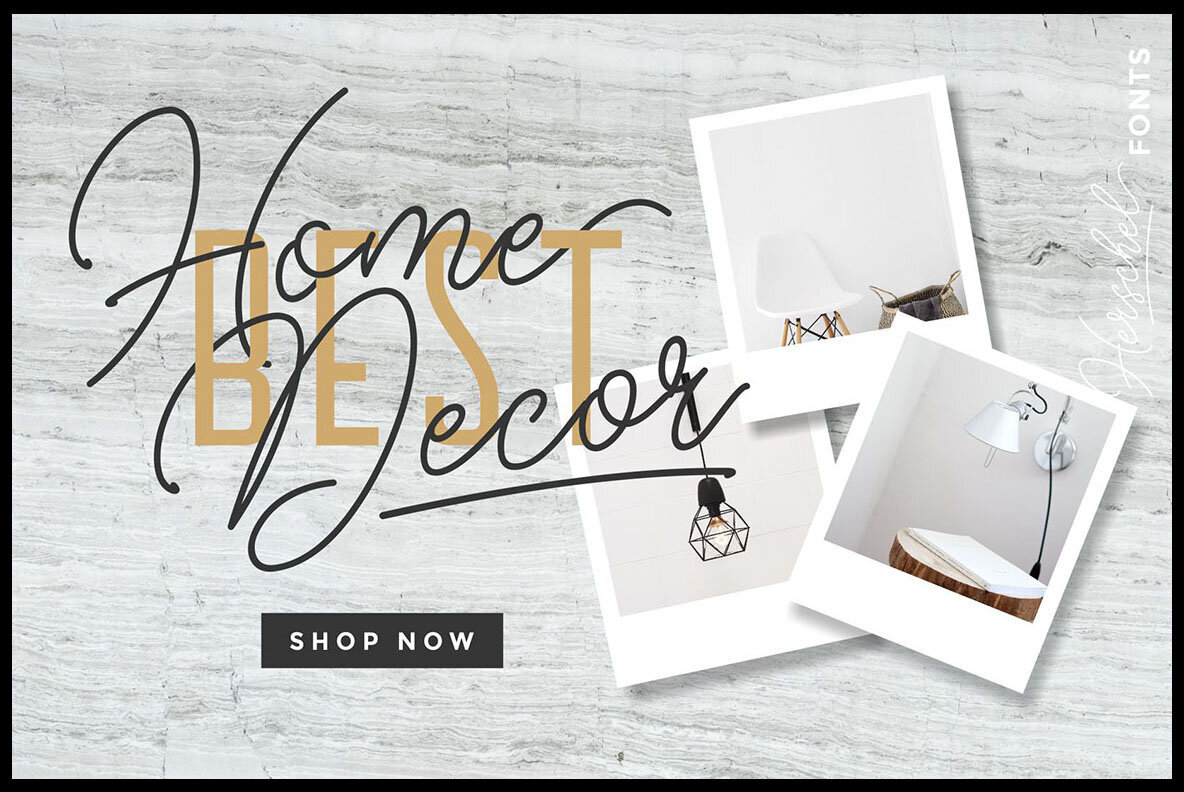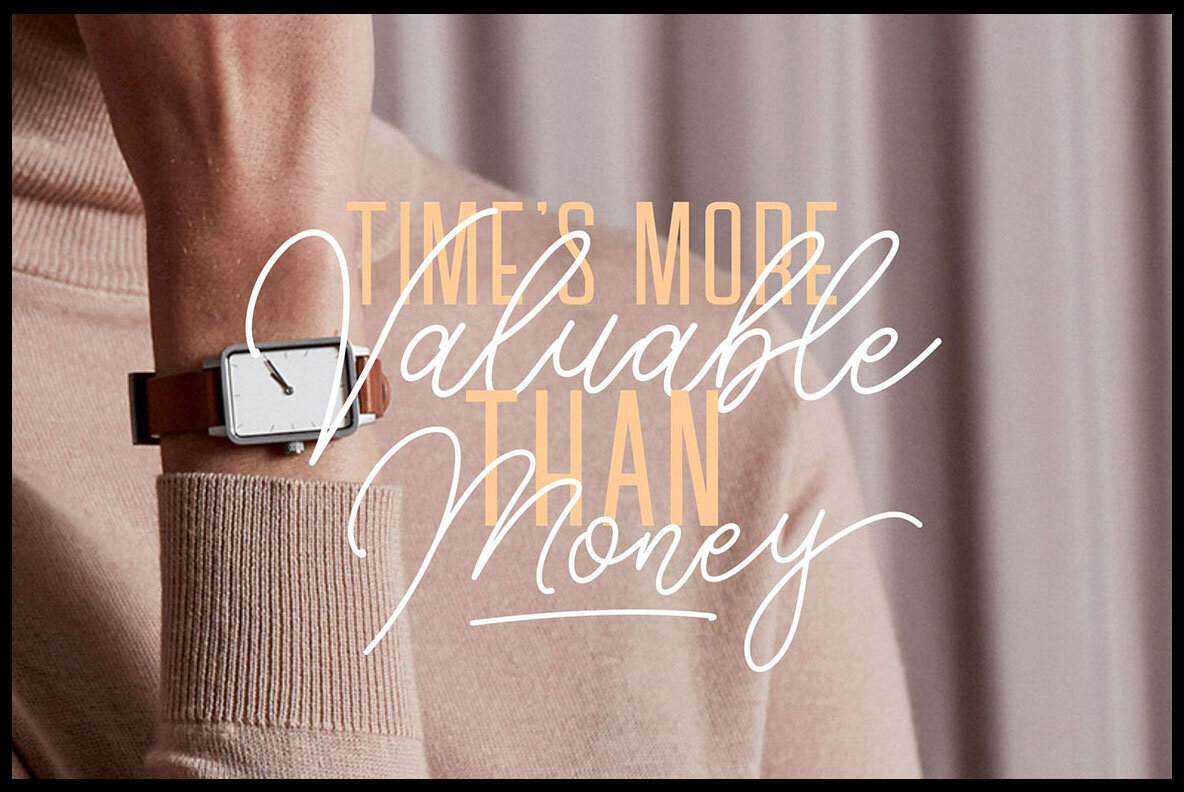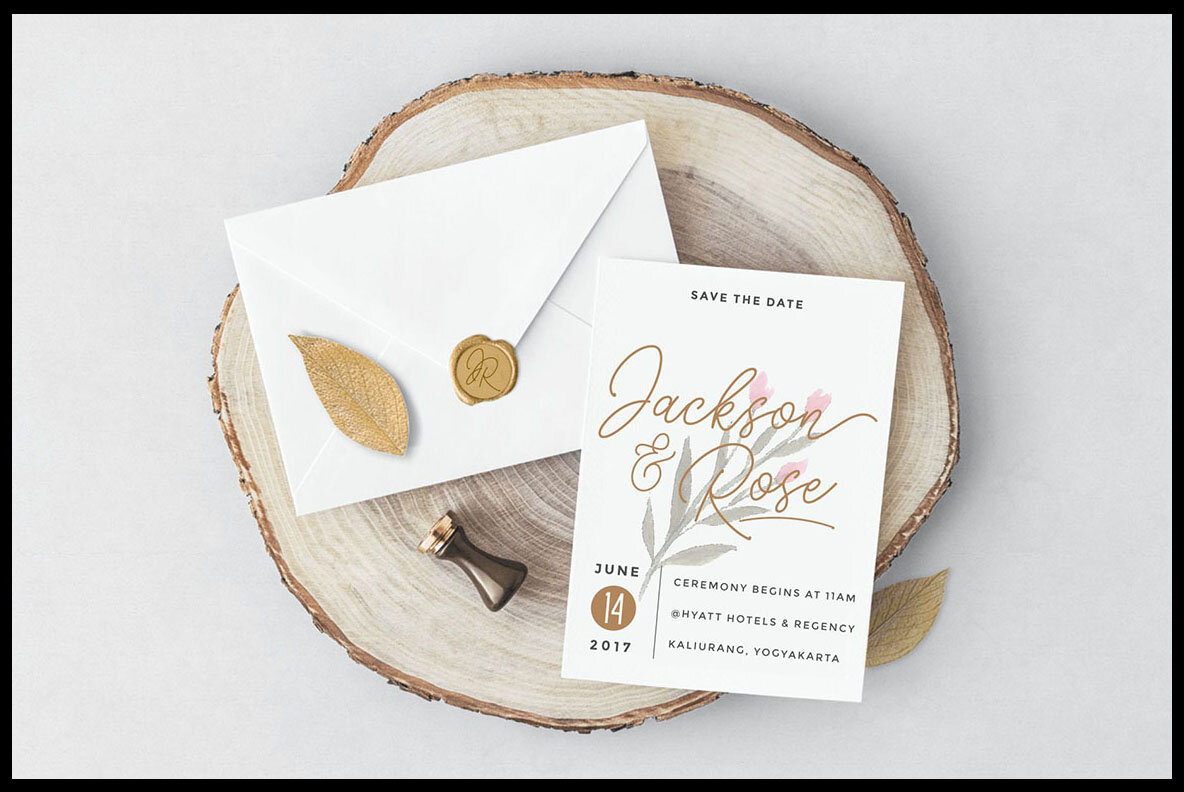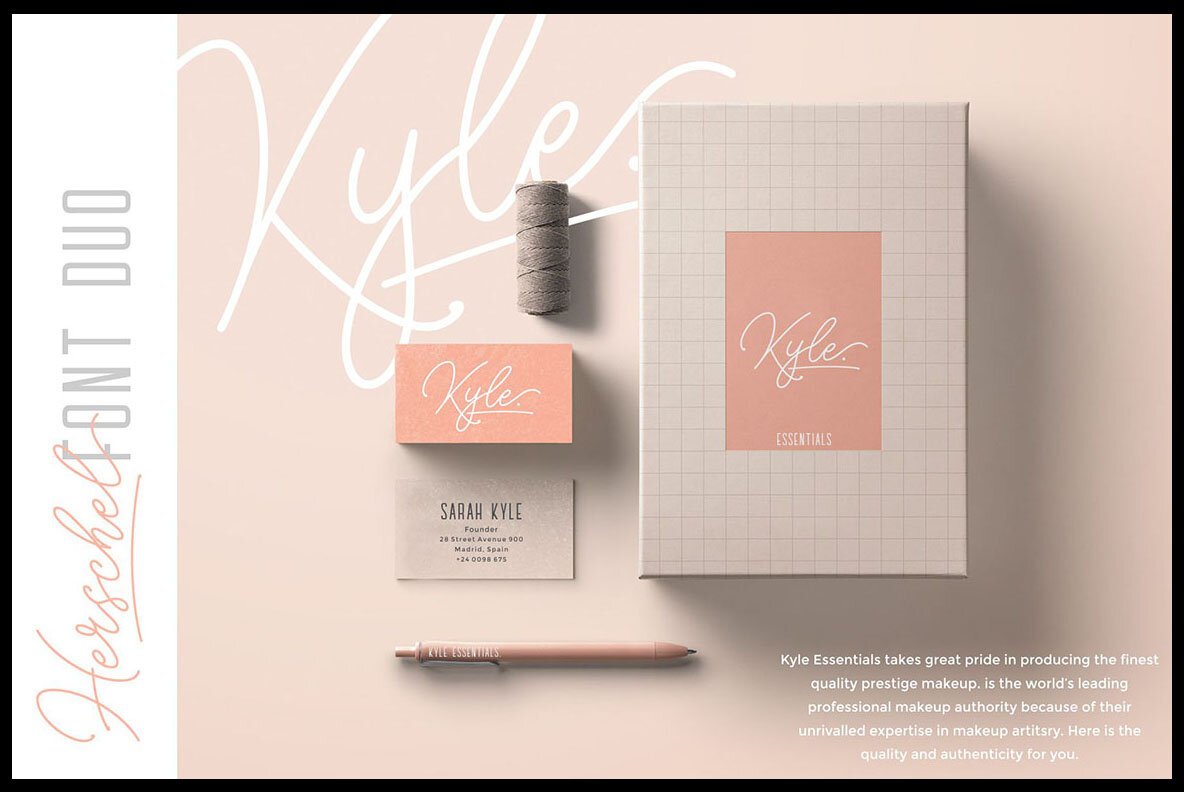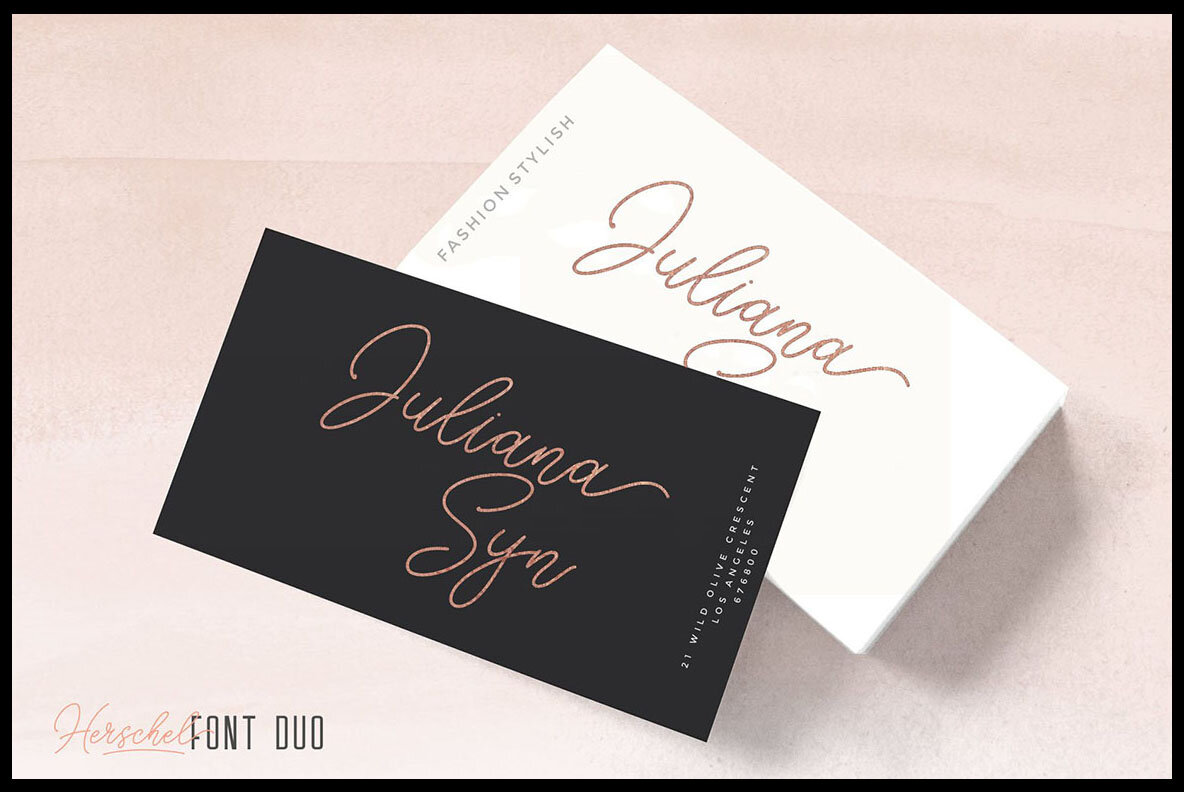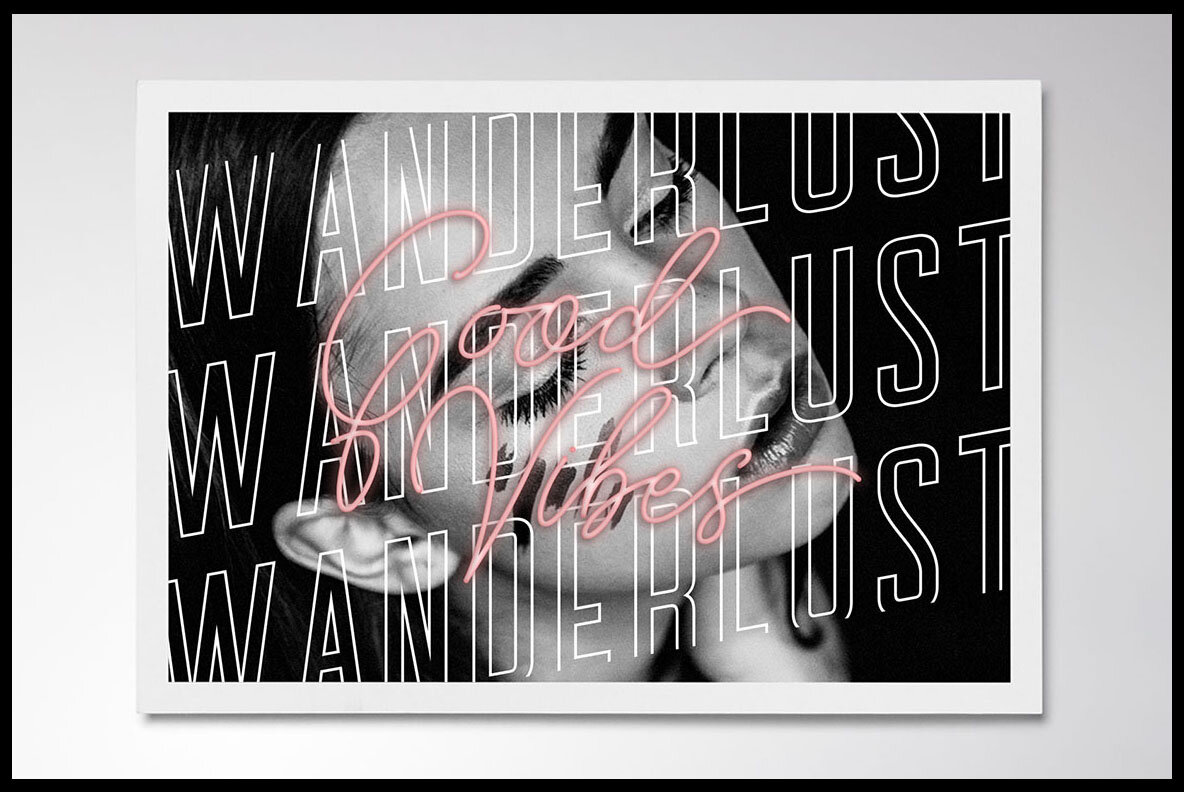
Herschel Font
Herschel, designed by Peter Olexa, is a versatile font duo featuring a combination of script and sans styles. Inspired by modern signature aesthetics and sans innovations, this font collection allows for the creation of classy headers and text. Ideal for branding, advertising, or creative projects, Herschel offers a perfect balance between casual charm and formal elegance.Herschel: A Versatile Script and Sans Font Duo